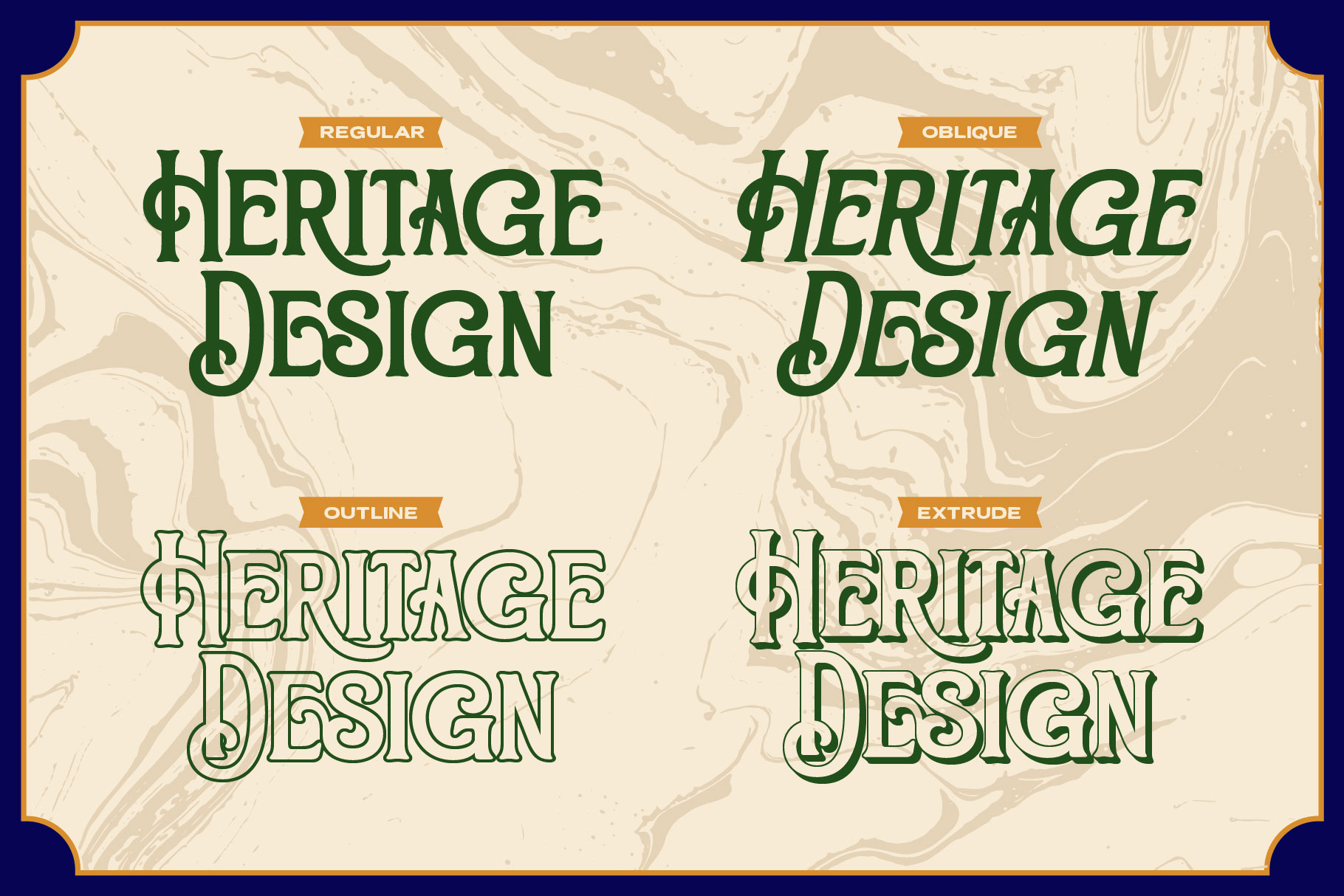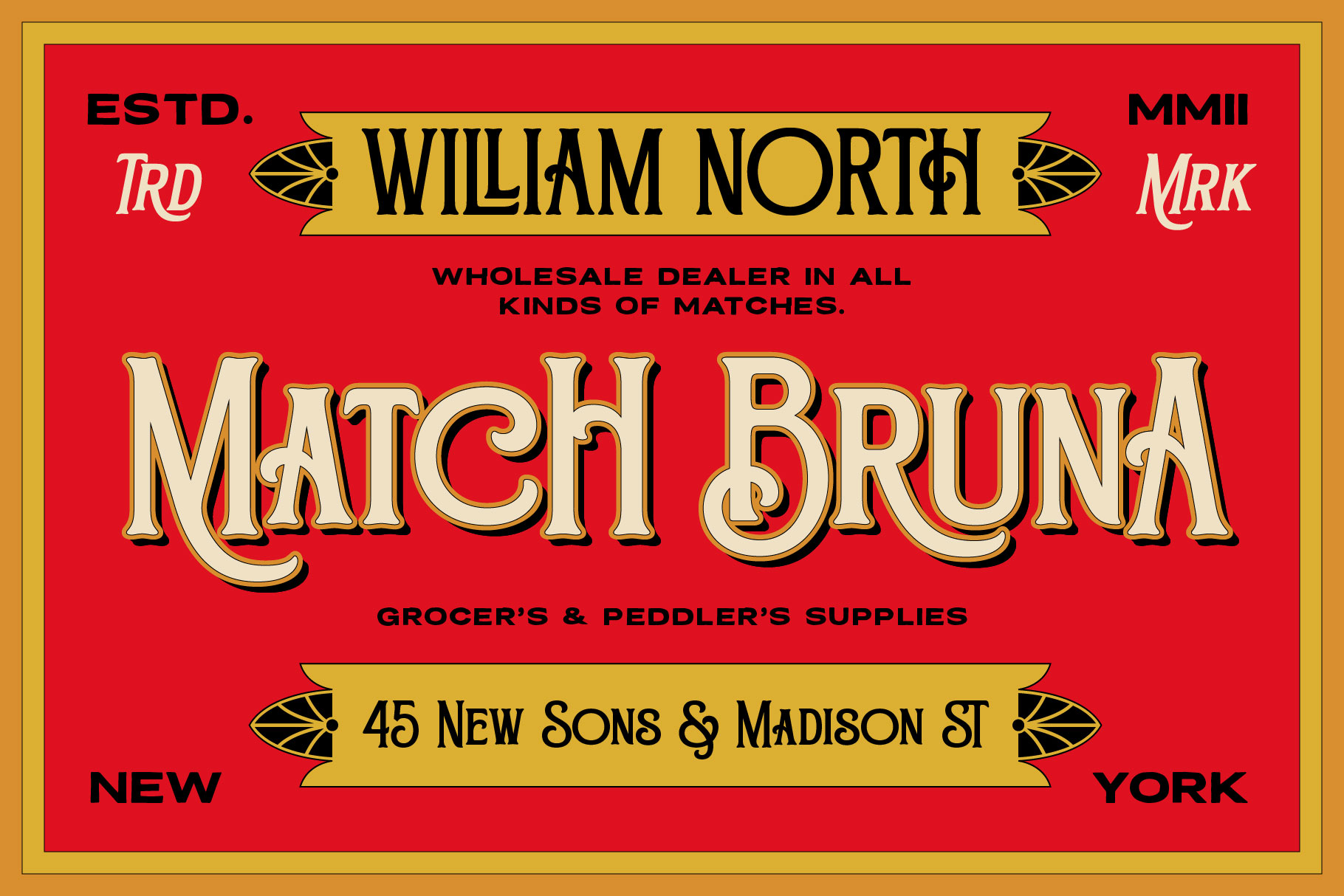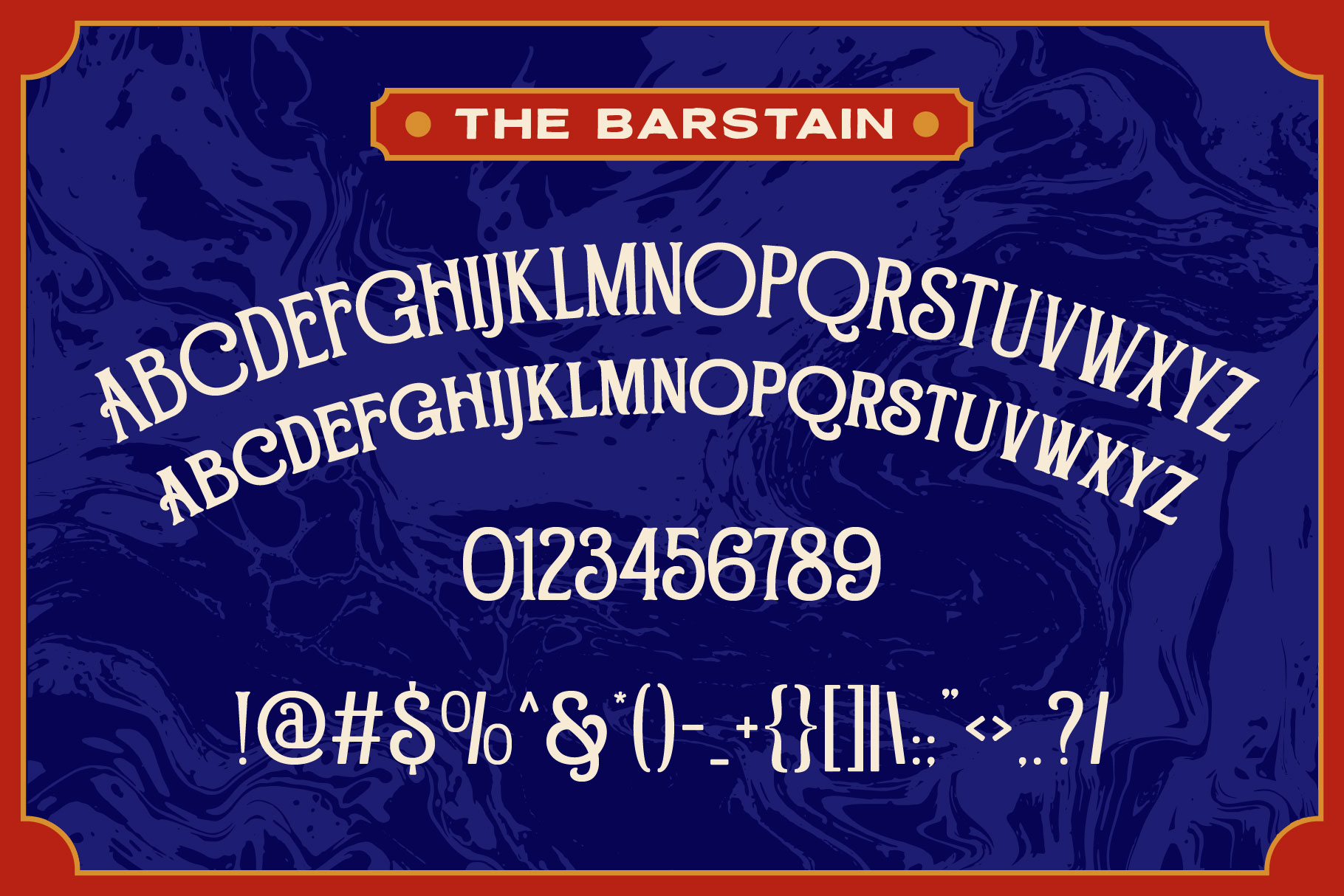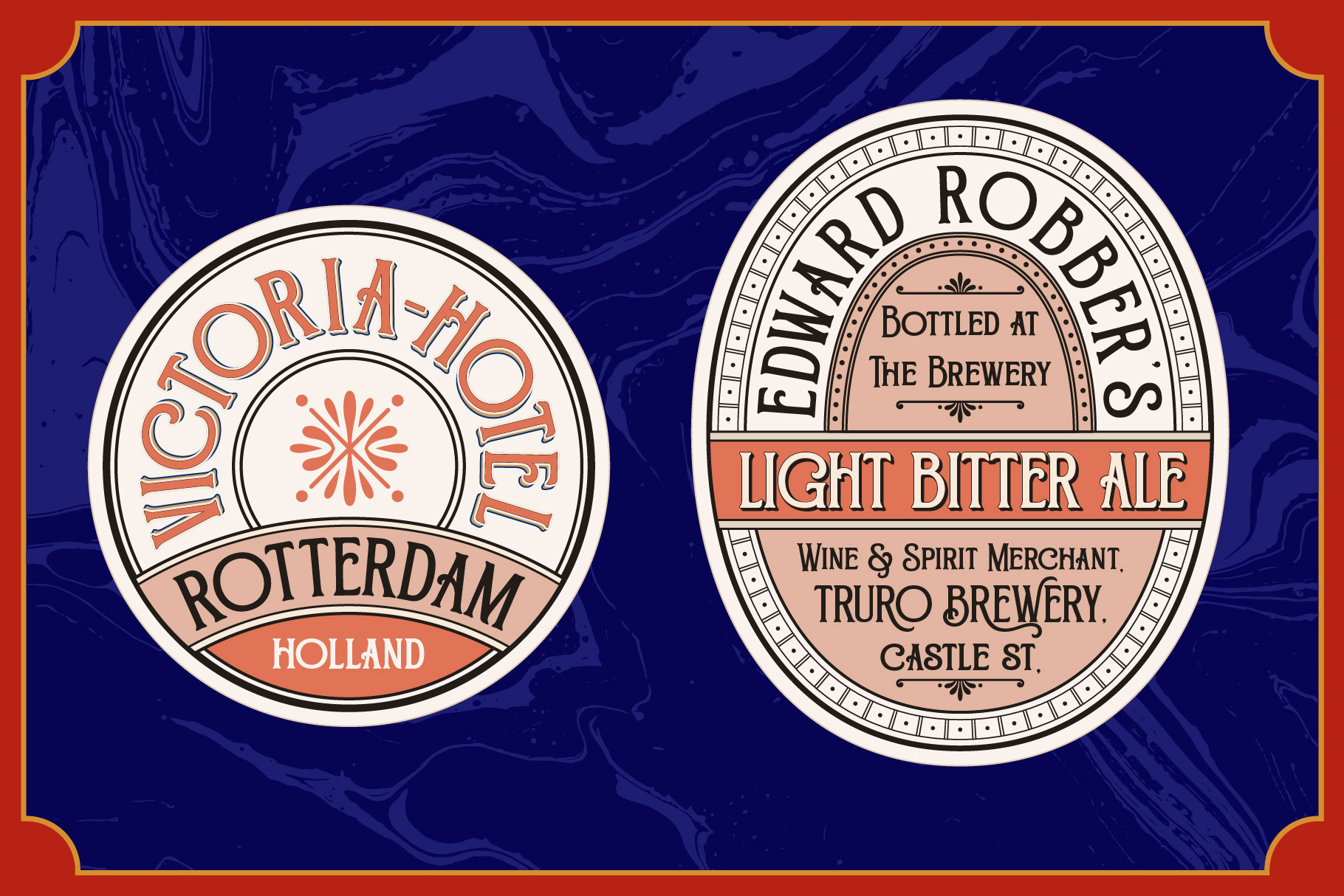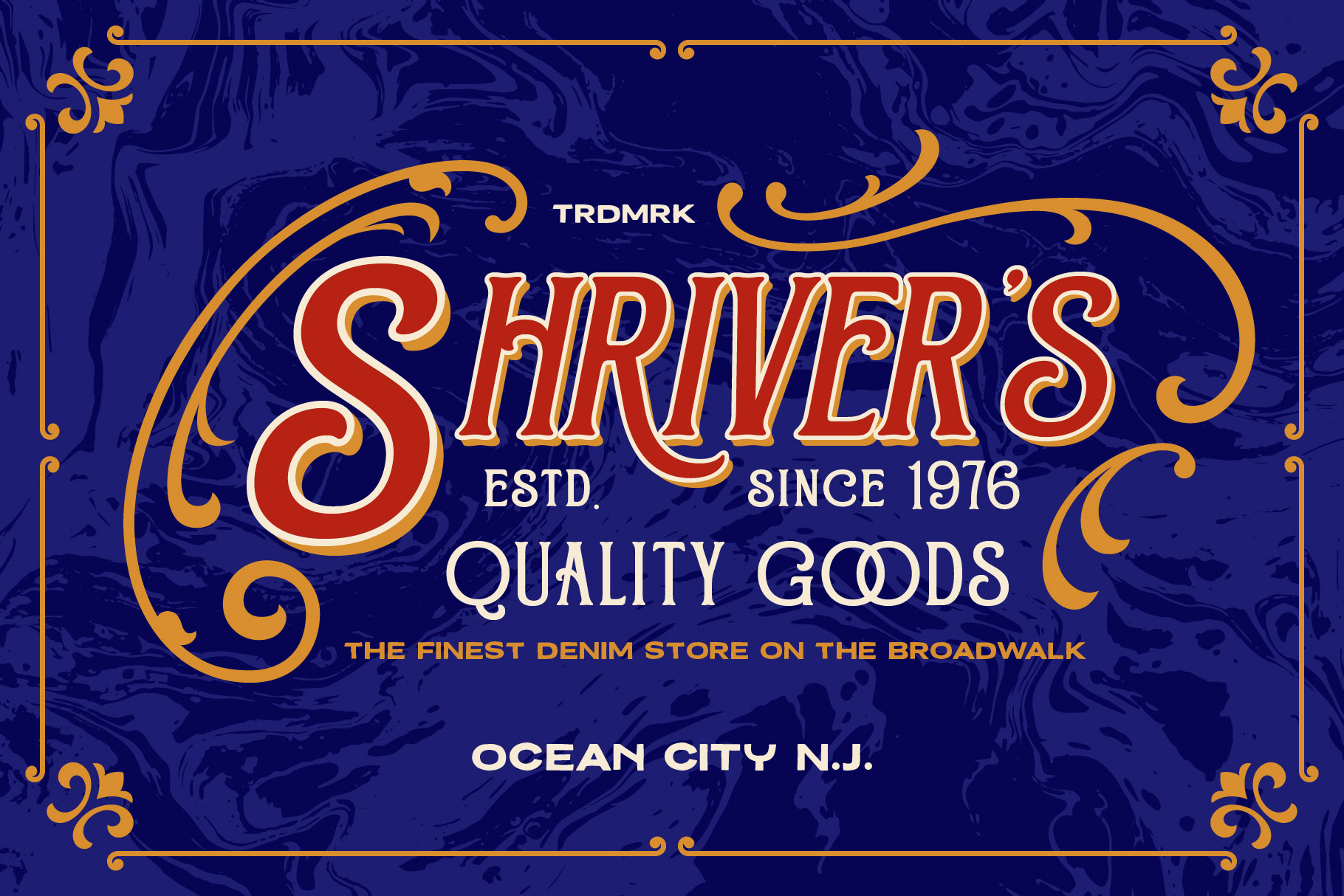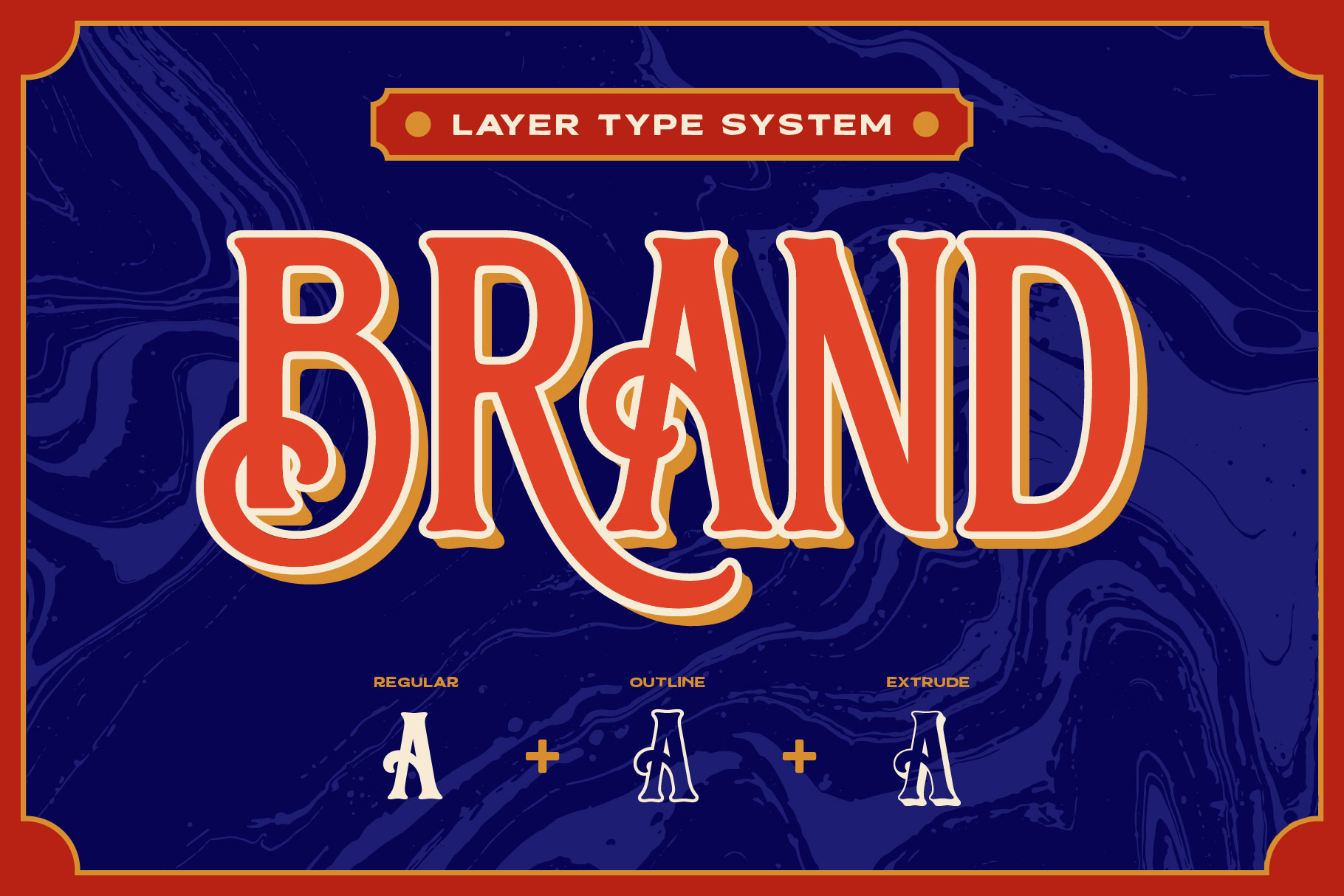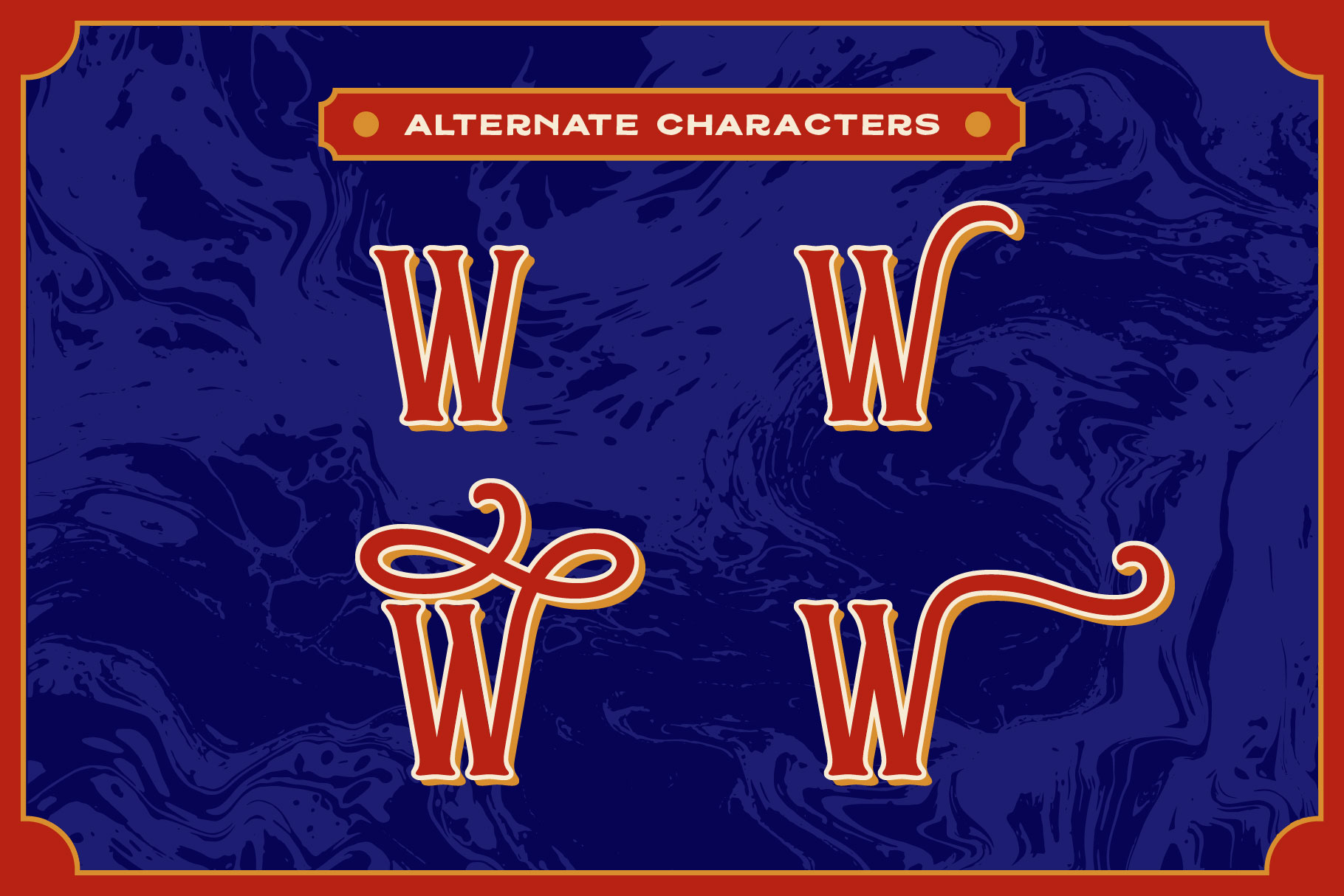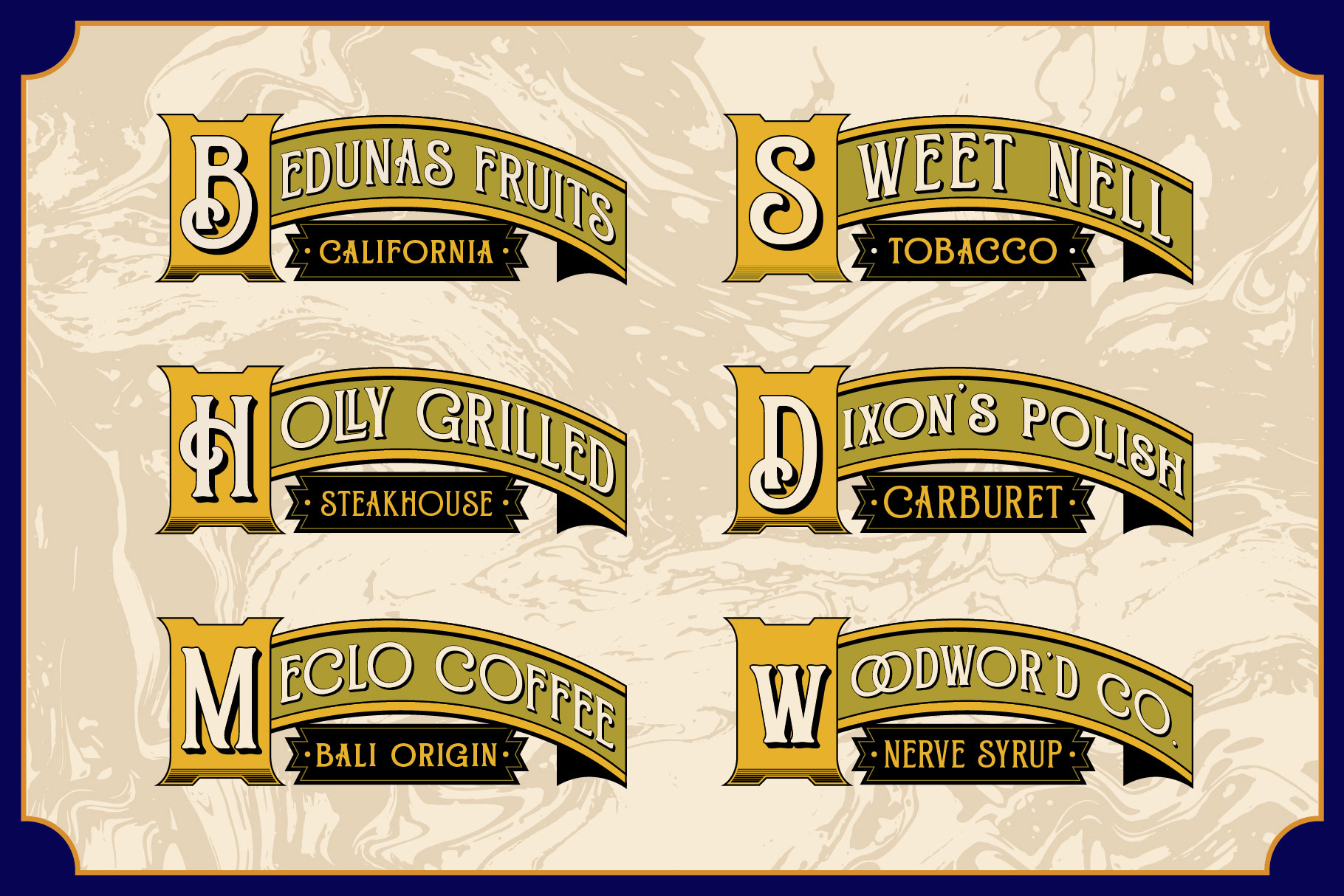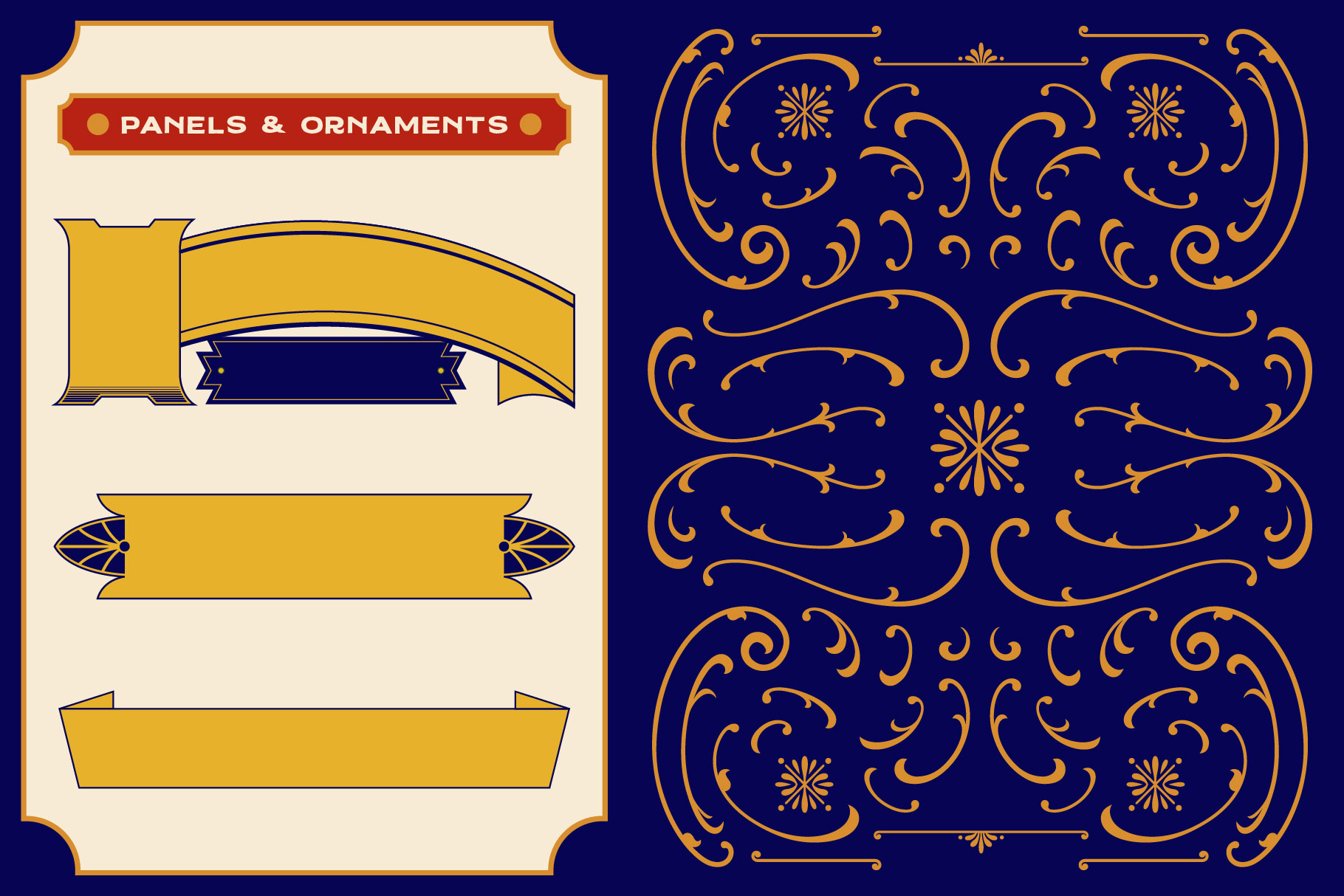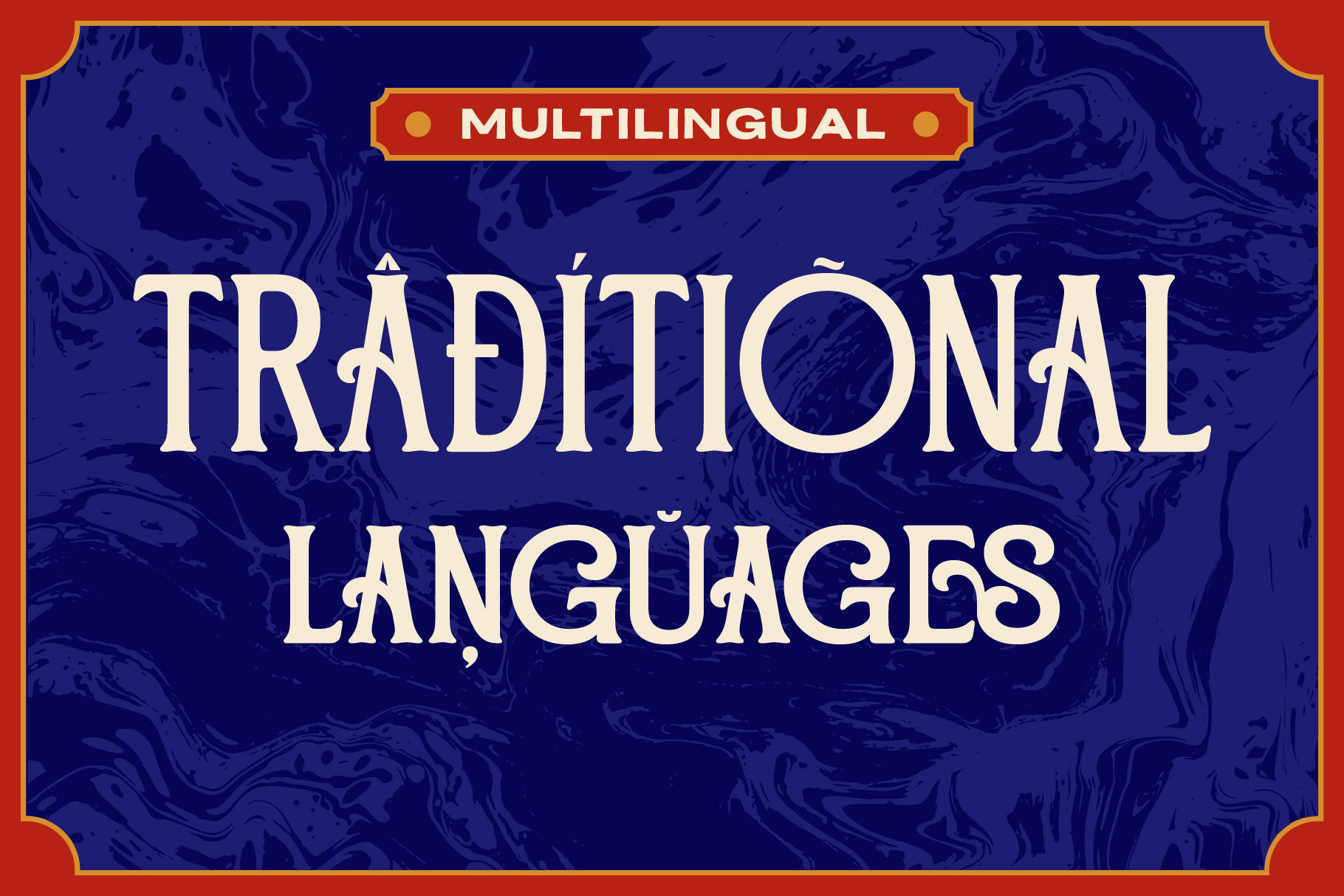
The Barstain
Regular
Oblique
Extrude
Outline
Proudly present,The Barstain, a classic serif font inspired by Victorian era. This font has 4 layers: regular, outline, extrude and oblique. Also this font includes alternates, panels and ornaments to make your design more vintage and elegant. The Barstain support multilingual accent, making it perfect for international use. This Victorian font is great for branding, editorial design, invitations, signage, poster and any project that needs a touch of Victorian era.